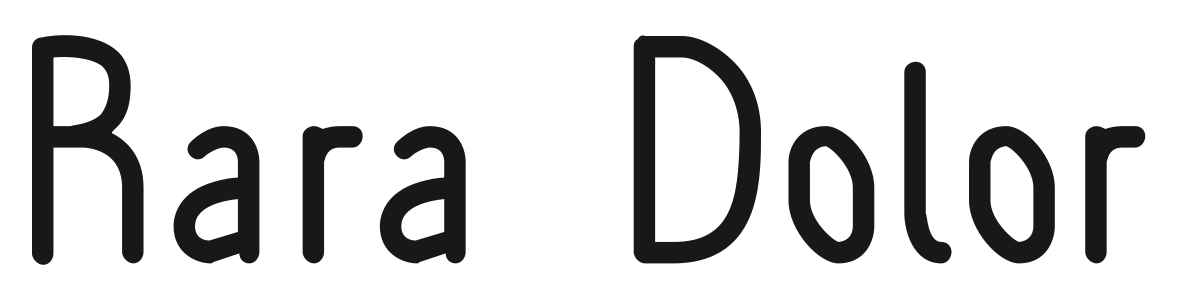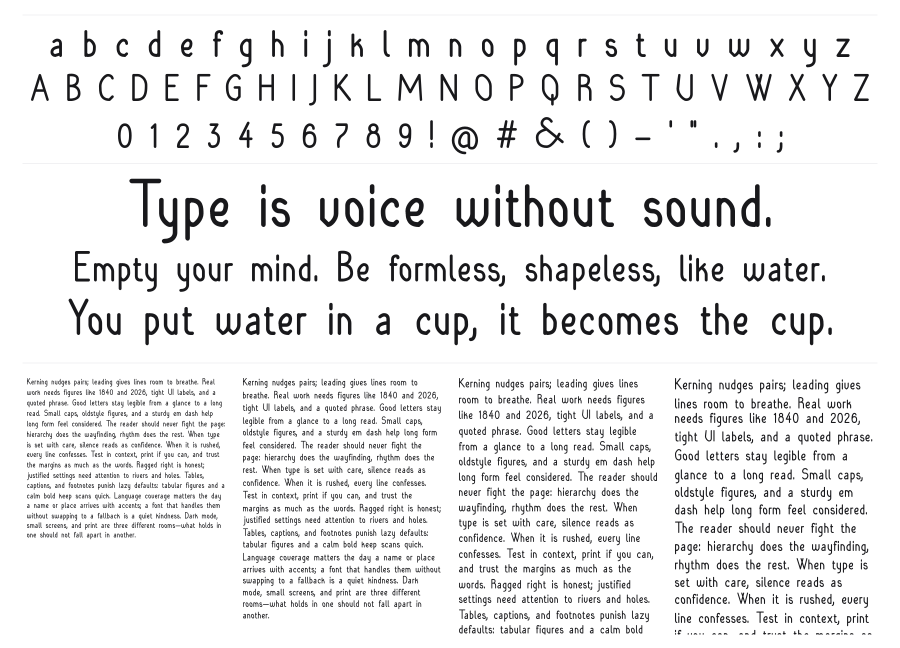
Rara Dolor
Rara Dolor is a thin, condensed handwritten face by Fabiane Lima with a quirky, slightly offbeat personality. The narrow letterforms stay light and informal, with just enough irregularity to feel like genuine handwriting rather than a polished script. Its compact proportions and airy weight make it a good fit for personal projects, packaging, or branding that wants to feel approachable and a little unexpected.